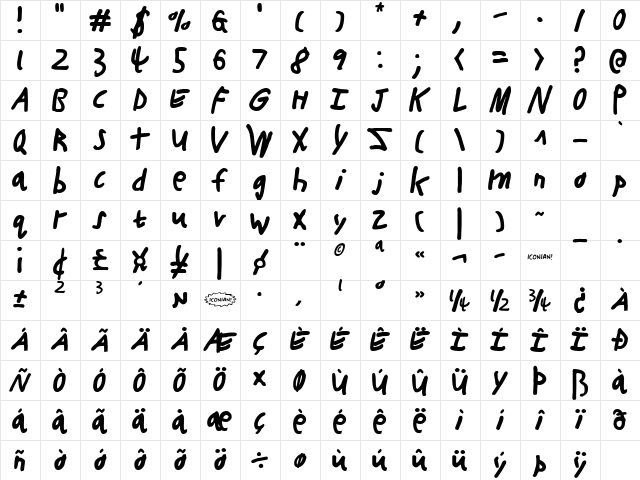
Buttons the Bear Regular Free Font
Buttons the Bear Regular
Buttons the Bear Family
Complete Buttons the Bear Regular glyph index. Displaying only characters natively supported by Buttons the Bear Regular font.
Design Context for Buttons the Bear
Buttons the Bear is a composed and adaptable typeface that performs quietly and consistently across a wide range of design contexts.